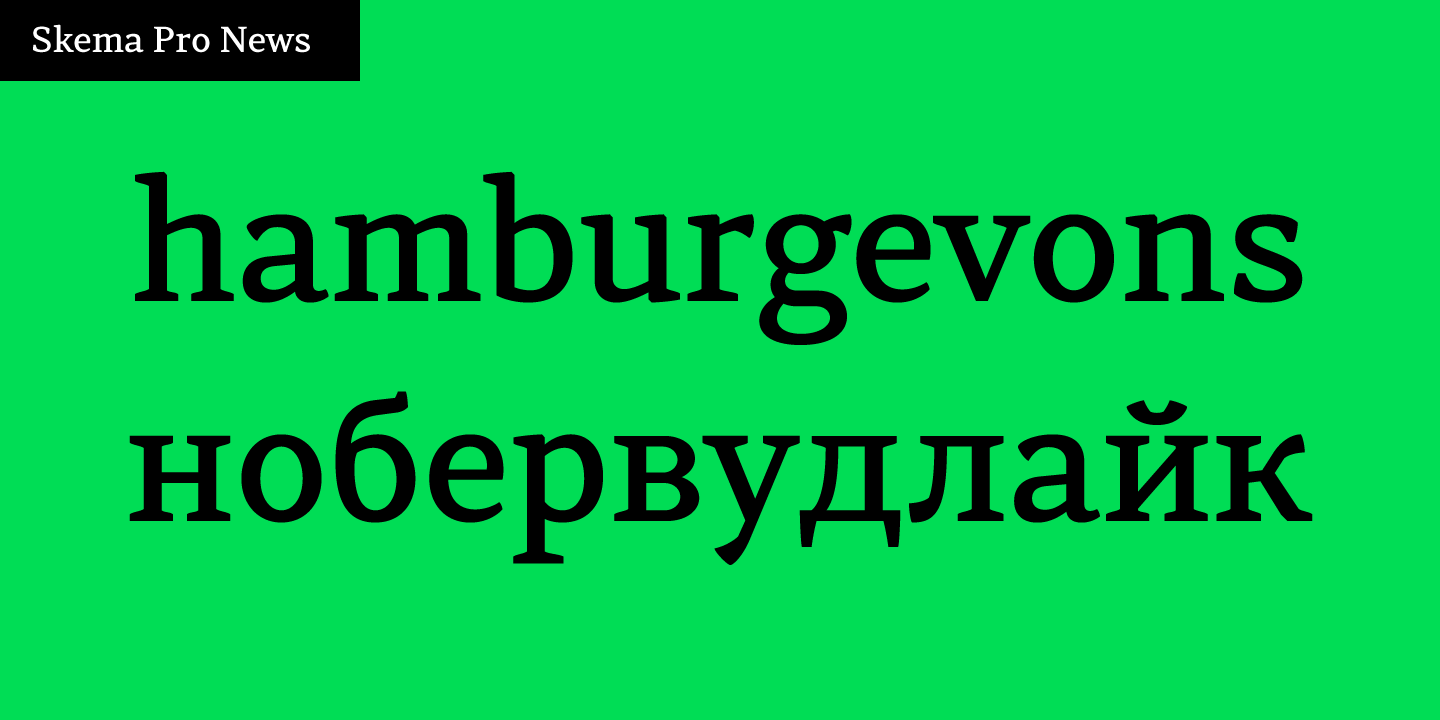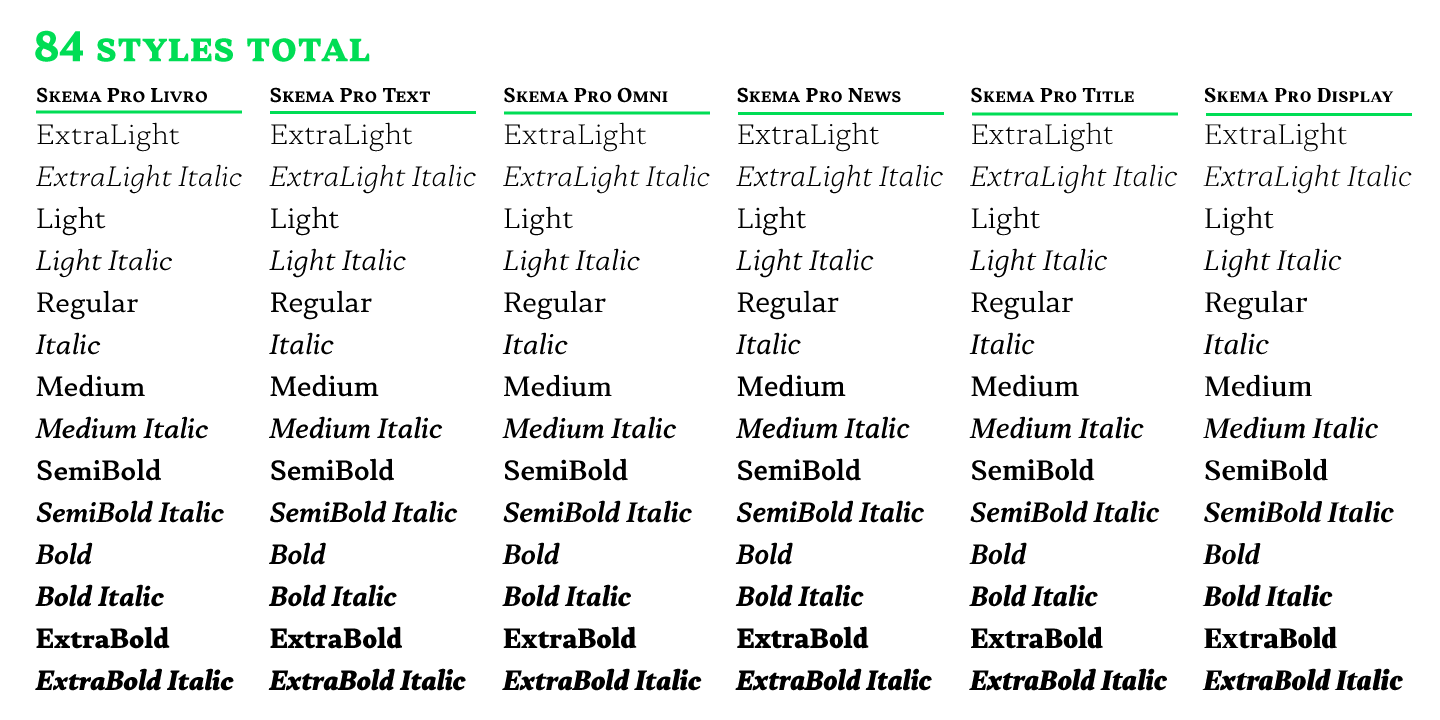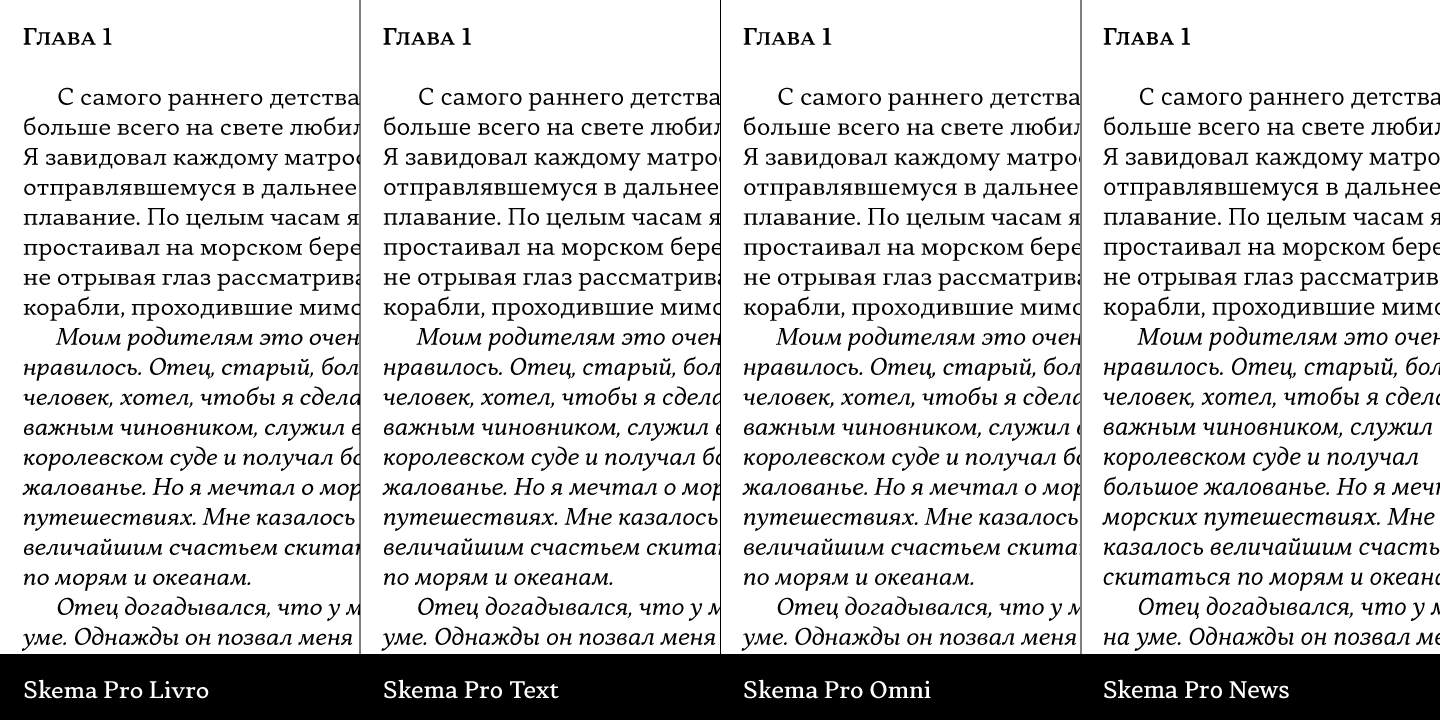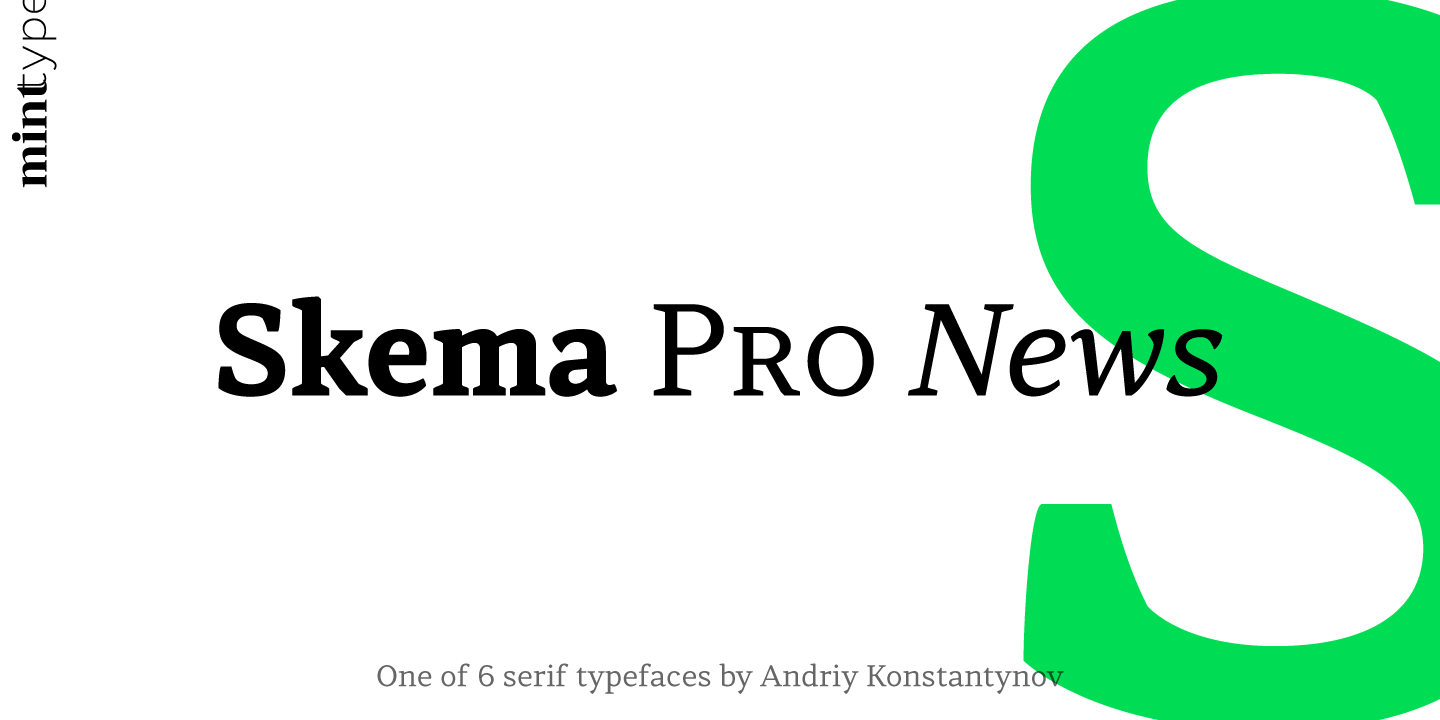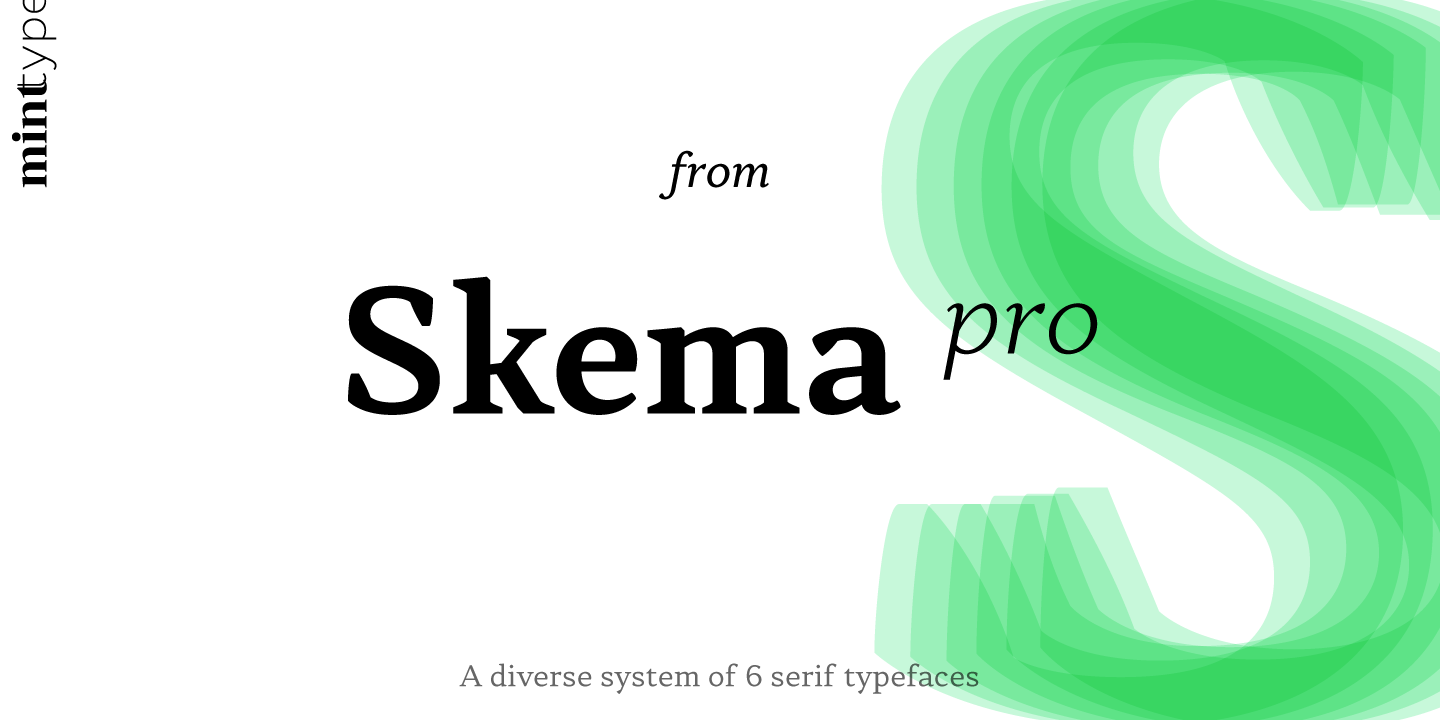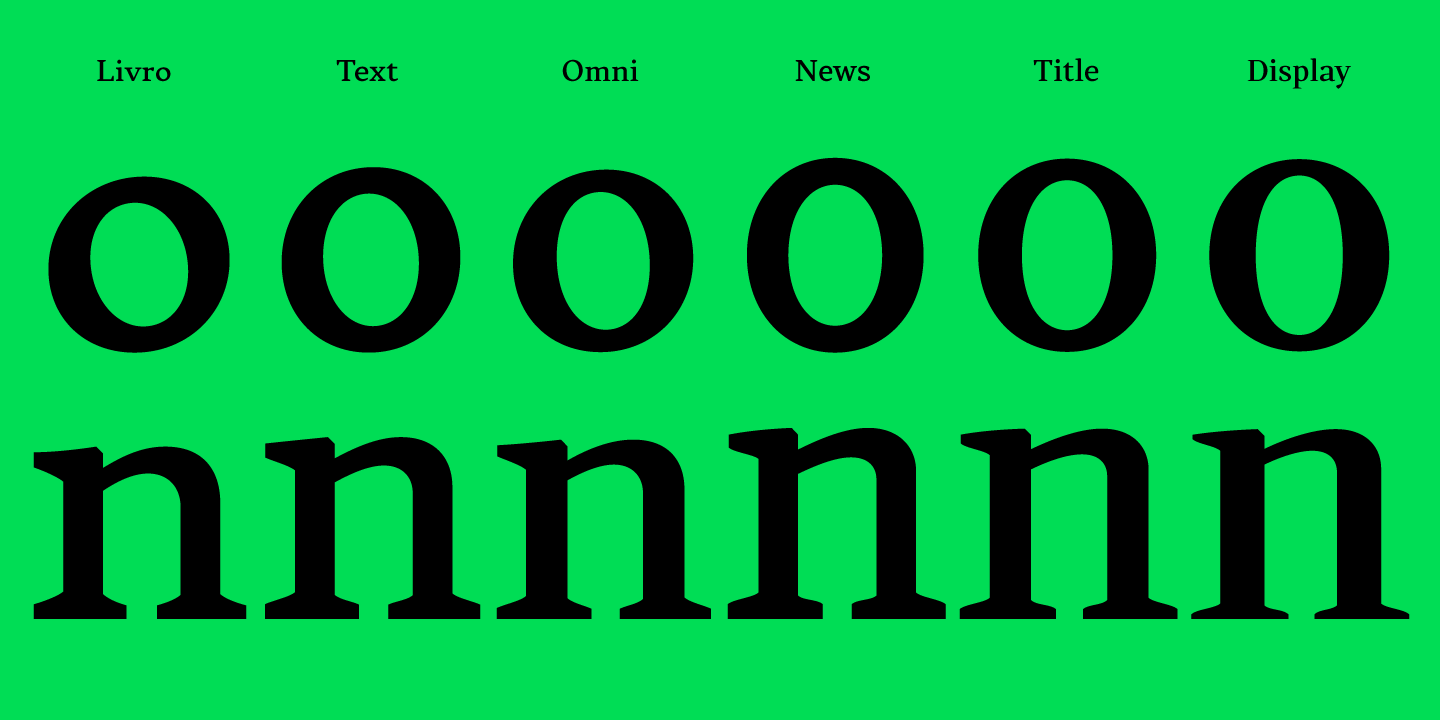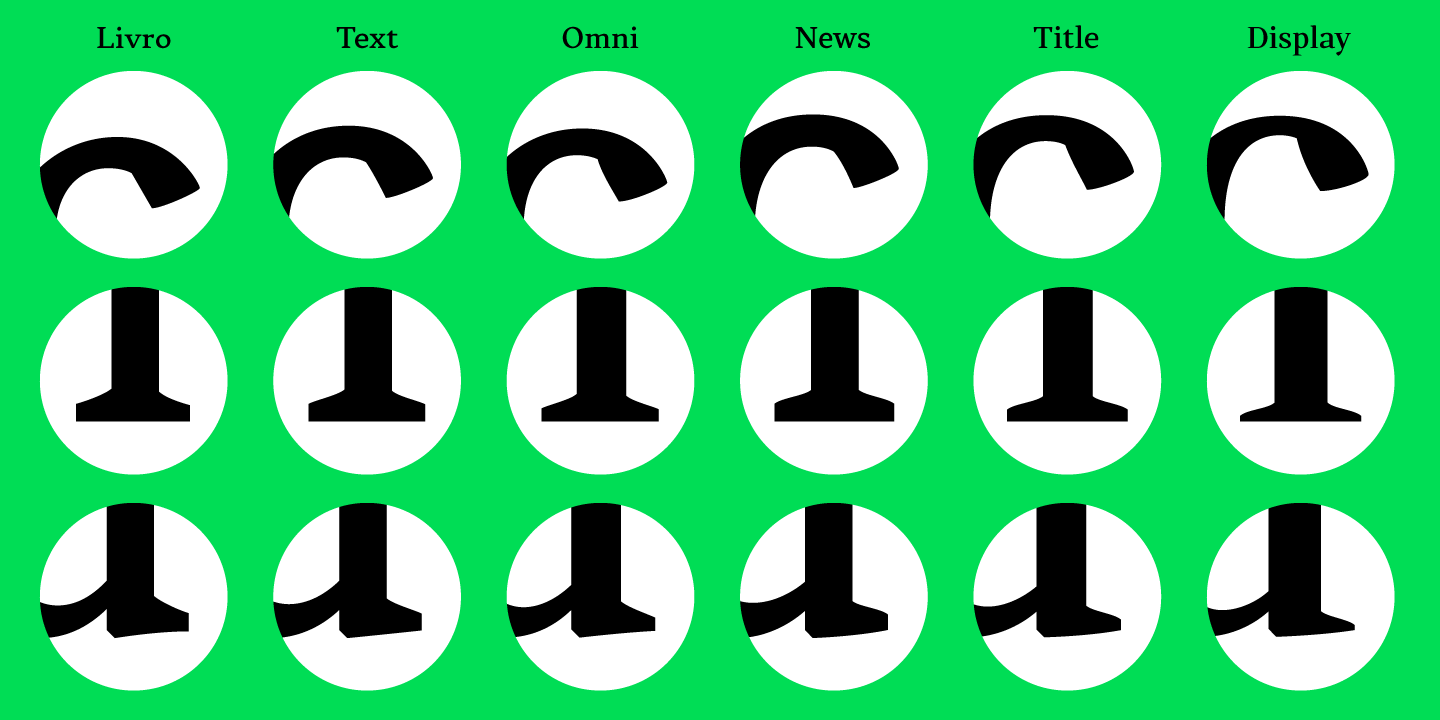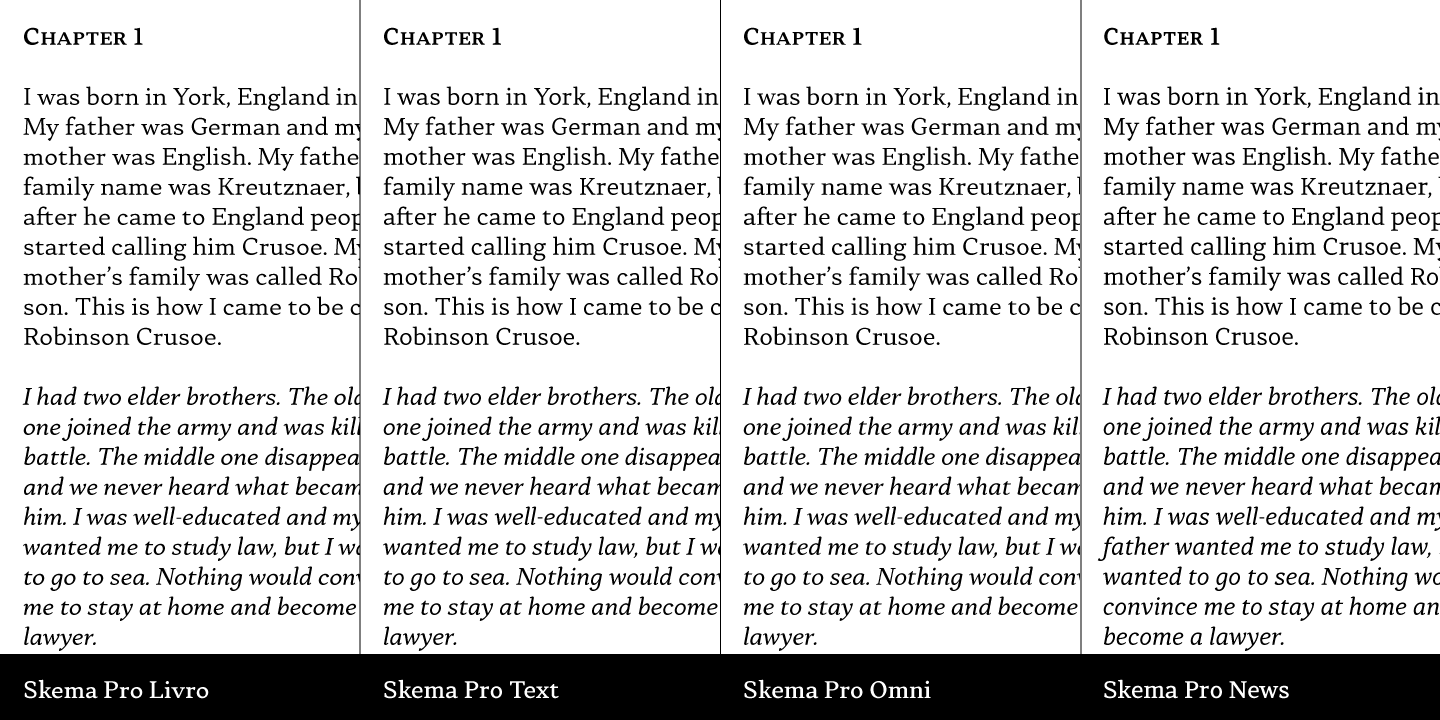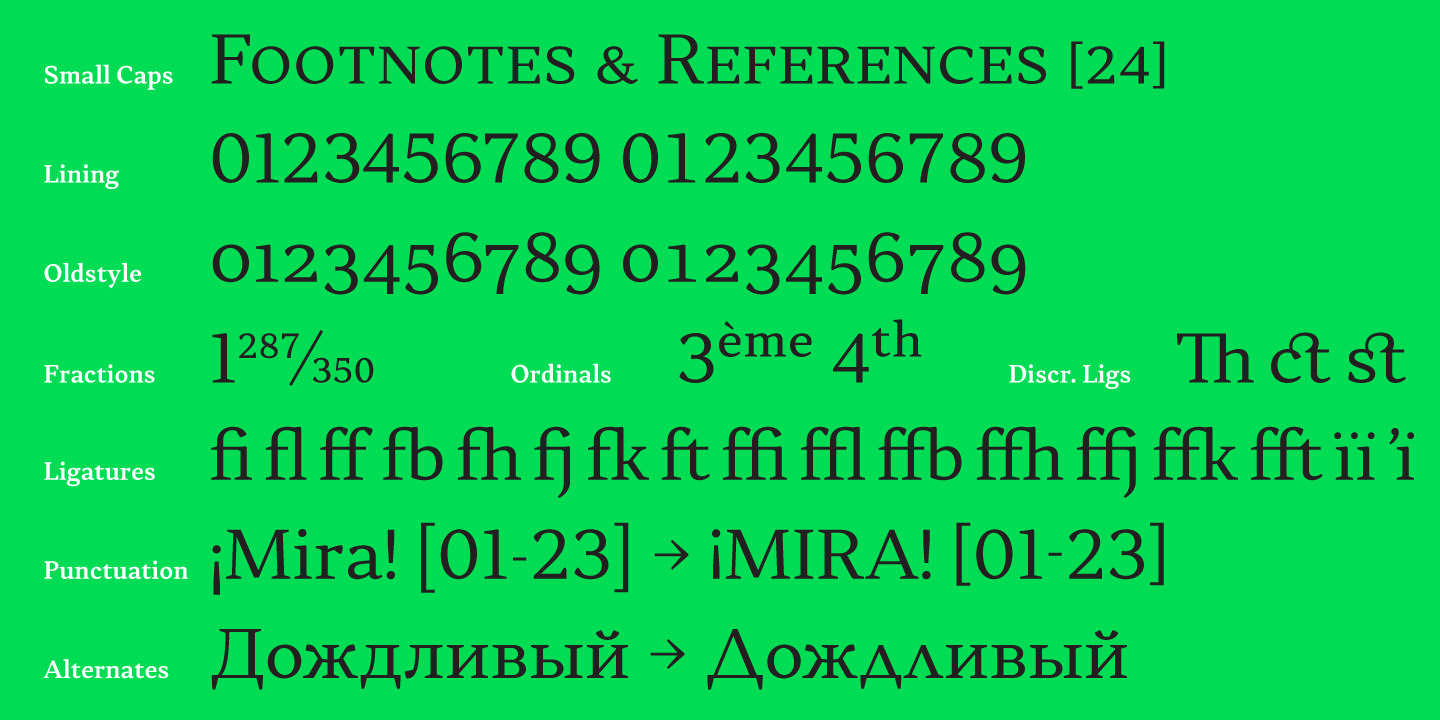
Skema Pro News
Skema Pro is a versatile system of 6 serif typefaces - each bearing a distinct character and purpose. Together they form a huge superfamily of 84 fonts to fit any imaginable task.
Skema Pro News is a low contrast, large x-height typeface with vertical axis. Works best in newspapers and in screen applications.
Designed by Andriy Konstantynov